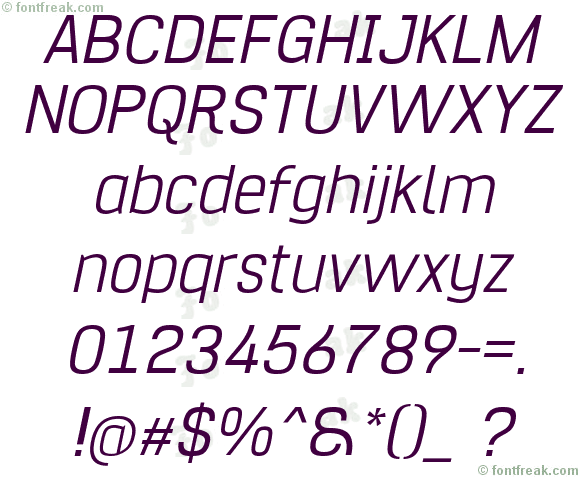
Hurufo & Numero Bold Italic Italic
Hurufo & Numero Bold Italic Italic is a striking display font designed by Situjuh Nazara in 2013. This font belongs to the sans-serif category, characterized by its clean lines and contemporary aesthetic. With an emphasis on boldness, the font features a medium to heavy stroke weight that commands attention while maintaining readability. Its italic style adds a dynamic flair, making it ideal for conveying motion and energy. The contrast between the bold strokes and the sleek italic slant results in a visually engaging typeface that stands out in various applications.
The spacing in Hurufo & Numero Bold Italic Italic is thoughtfully designed, providing ample breathing room between characters, which enhances legibility even in more compact layouts. This font is adorned with subtle decorative elements that contribute to its modern appeal without overwhelming the overall design. This unique blend of characteristics makes it a versatile choice for a range of creative projects.
Hurufo & Numero Bold Italic Italic is perfect for a variety of specific uses, including wedding invitations where its elegant slant can add a touch of sophistication, movie posters that require eye-catching titles, restaurant menus that benefit from a contemporary look, branding for small businesses aiming to make a memorable impression, and social media graphics that need to capture attention quickly.